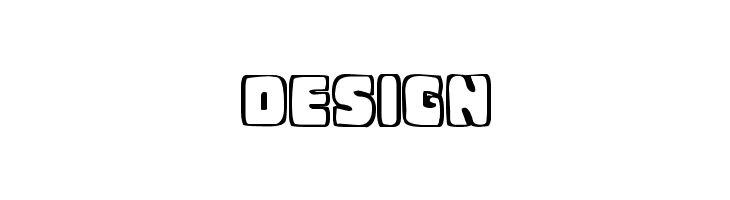
Offlander Rough Font
- Font: Offlander Rough
( Fonts by www.lars-manenschijn.nl )
A playful, bold font with rounded, outlined characters and a whimsical style.